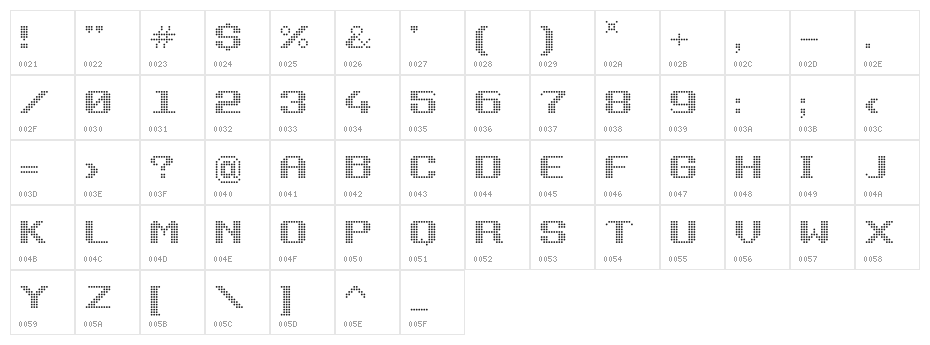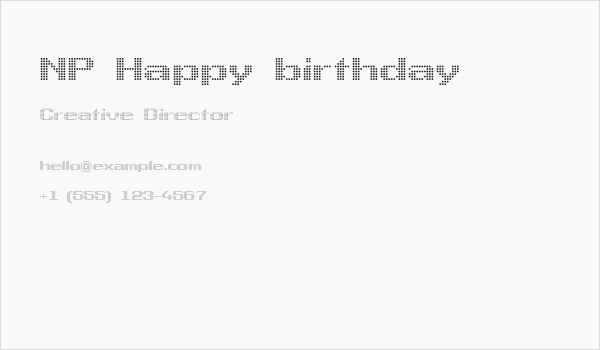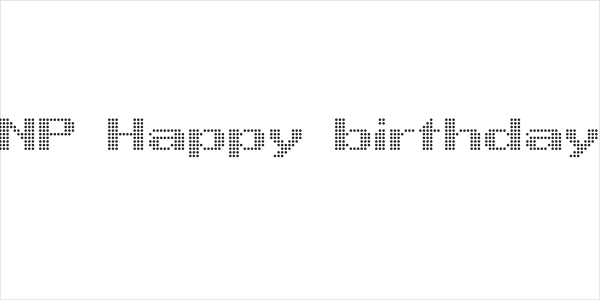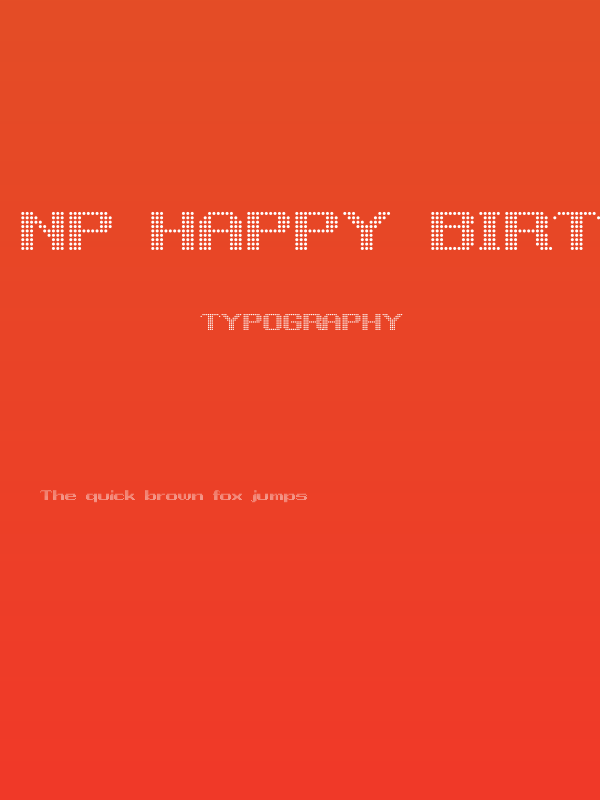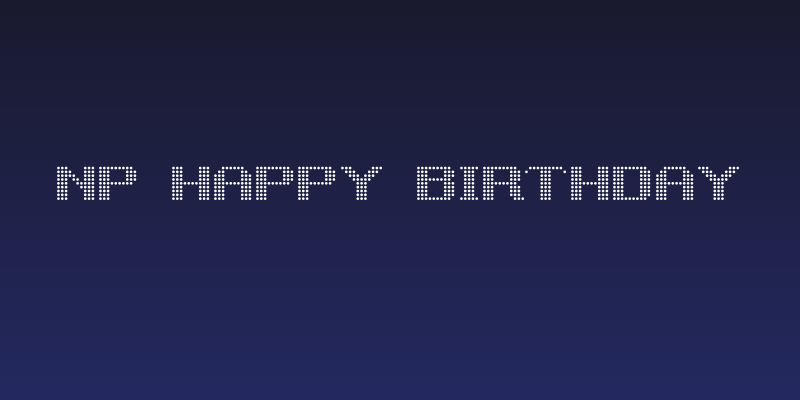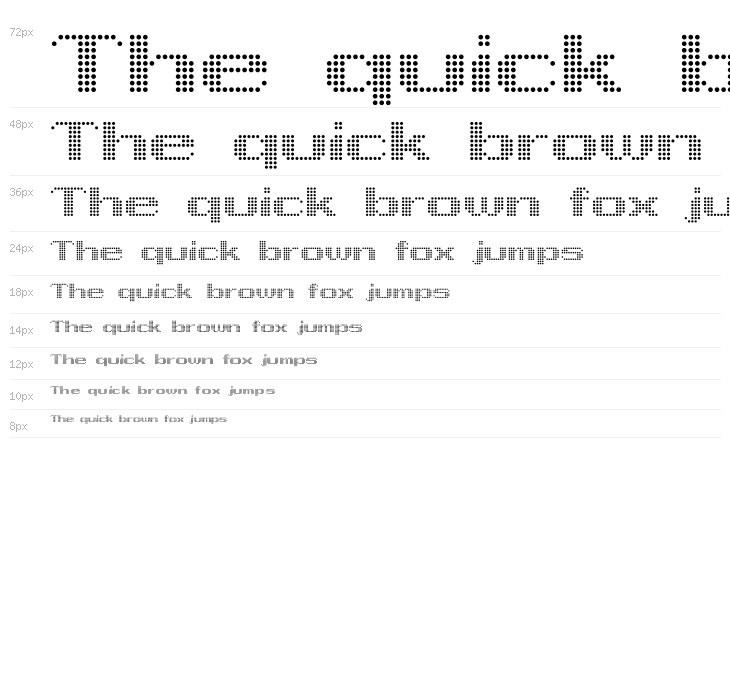
NP Happy birthday Font
NP Happy birthday Description
This font features a unique design composed entirely of small, evenly spaced dots forming each character. The style is reminiscent of digital displays or LED signage, giving it a modern and technological feel. The characters are uniformly constructed with a consistent dot pattern, providing a cohesive and structured appearance. The uppercase and lowercase letters maintain a similar width and height, ensuring readability and uniformity. Numbers and special characters are also crafted with the same dot matrix style, making them easily recognizable and visually appealing. This font is ideal for projects that require a futuristic or digital aesthetic, such as tech-themed designs, digital interfaces, or creative advertising.
| Proposed Projects | Ideal for digital displays, tech-themed designs, and creative advertising. |